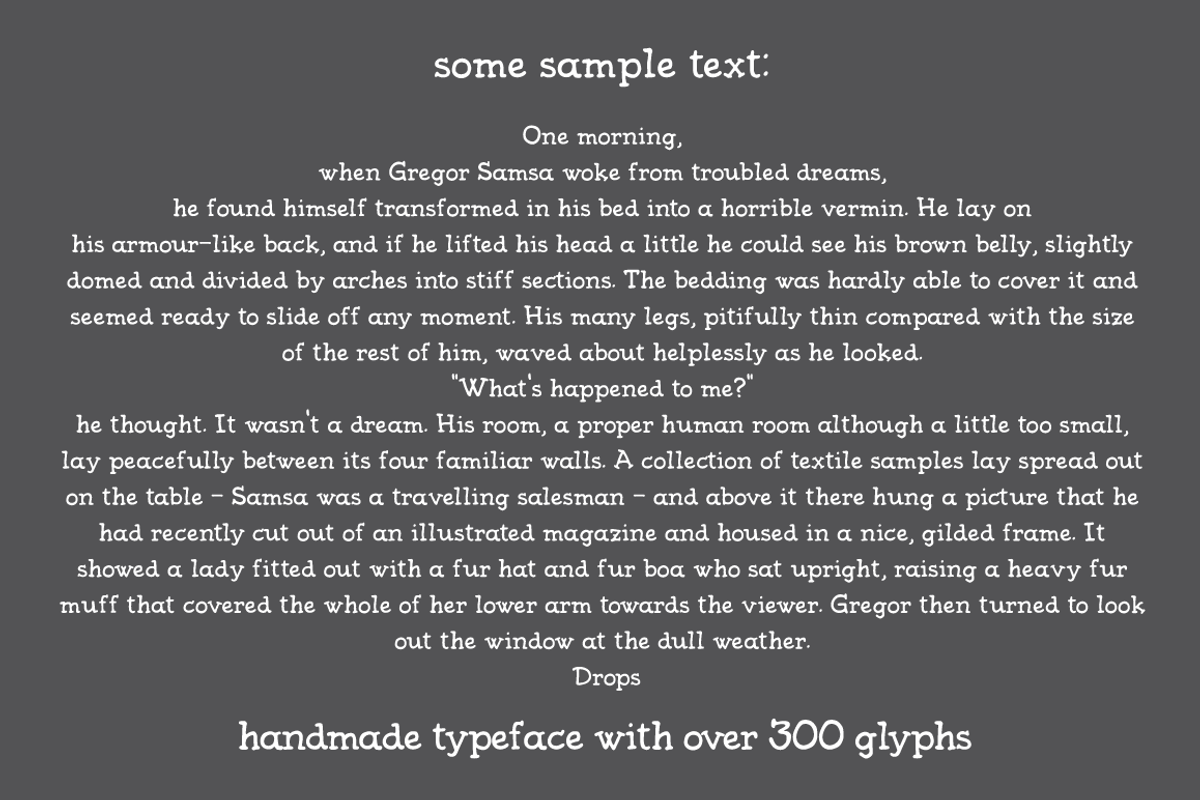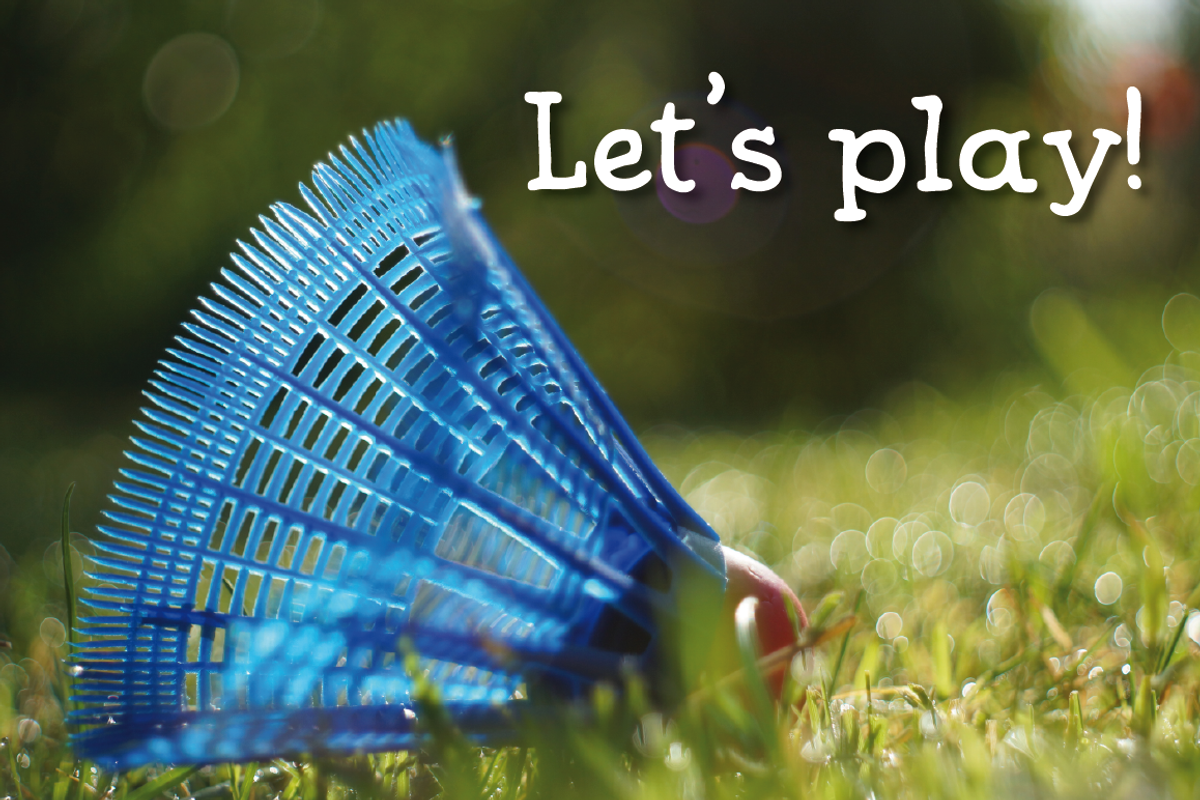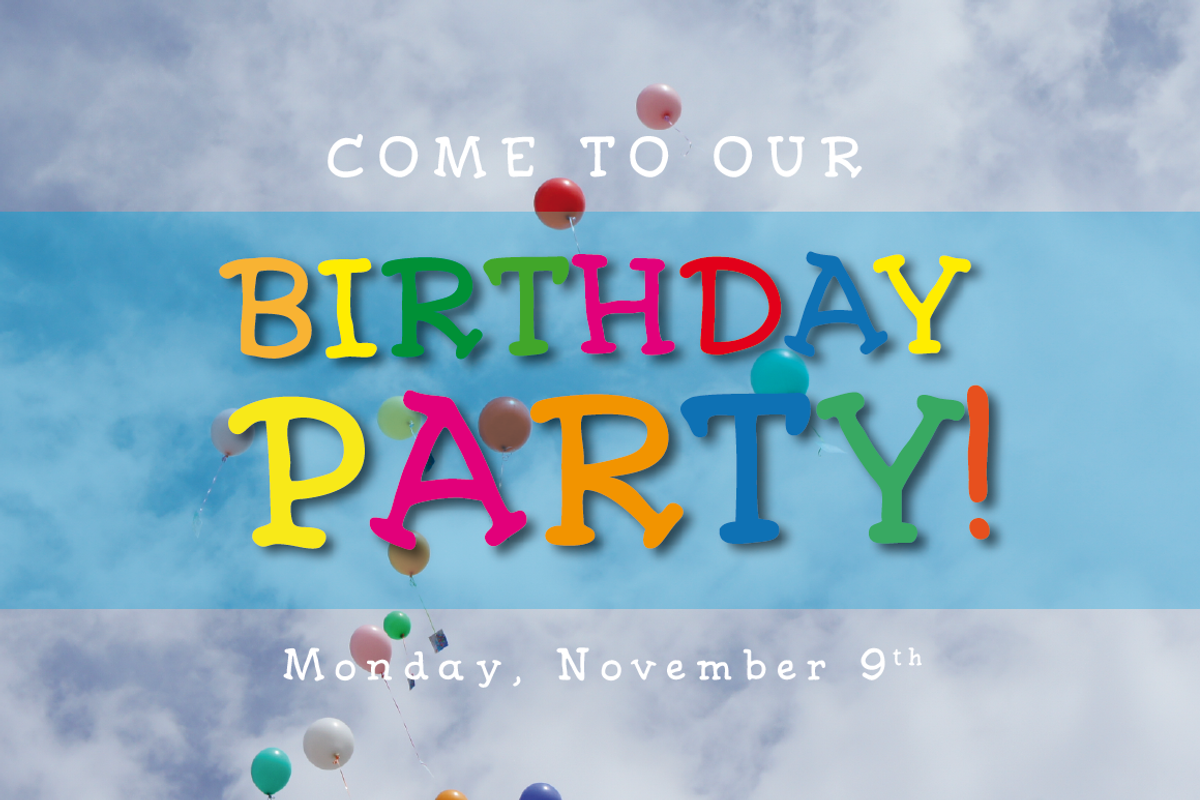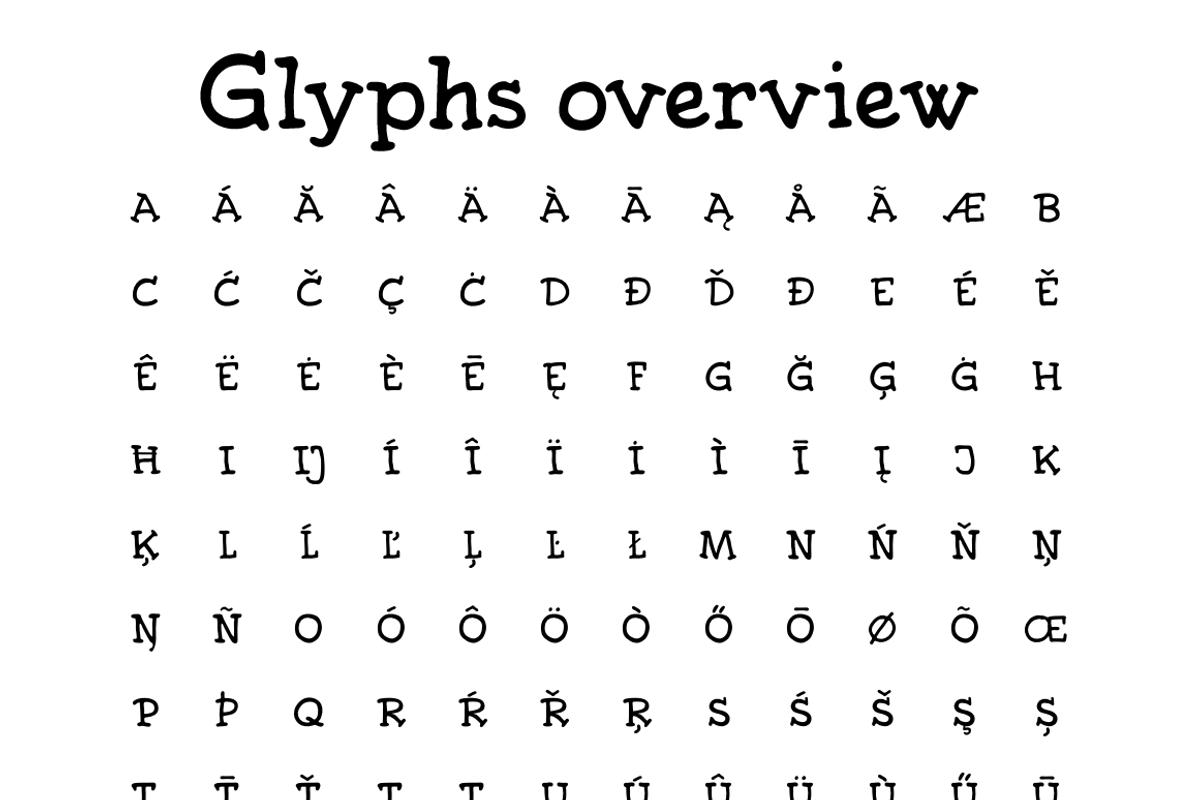
Edmond Bold
Edmond Bold by Fonts by ateliervonau is a font selected for branding, posters, packaging, typography.
- Included are over 300 glyphs for multi-language support (see preview panel 6).
Why Edmond Bold is worth a look
Edmond Bold by Fonts by ateliervonau fits naturally into Branding, posters, packaging, typography.